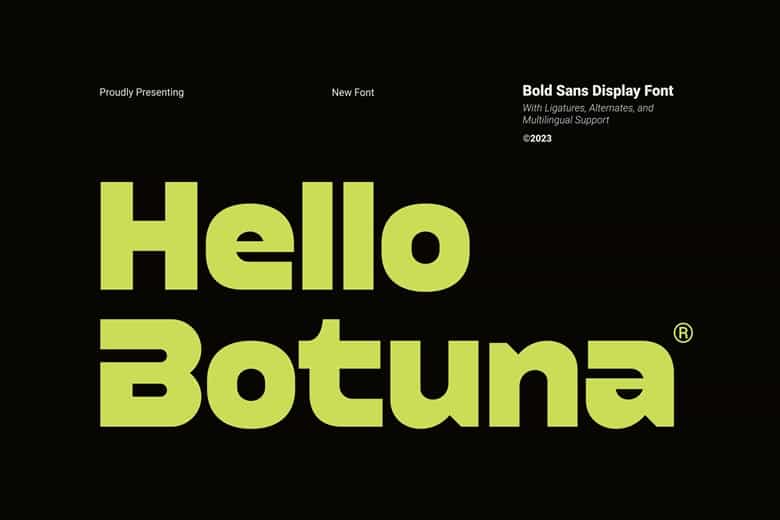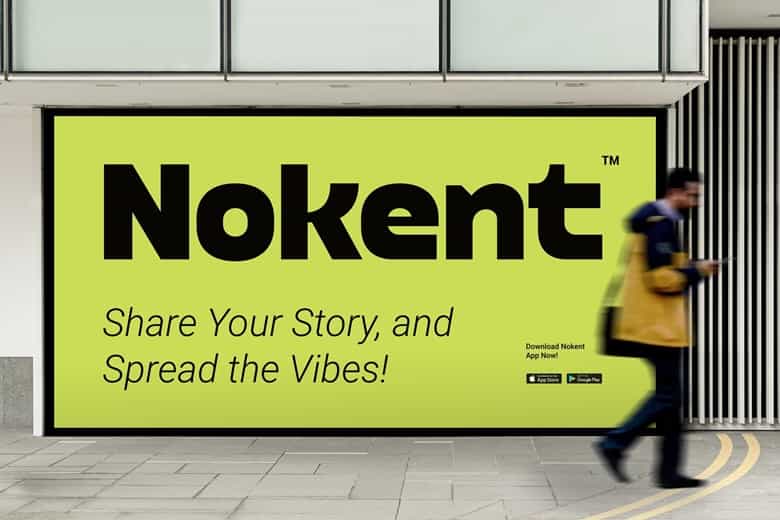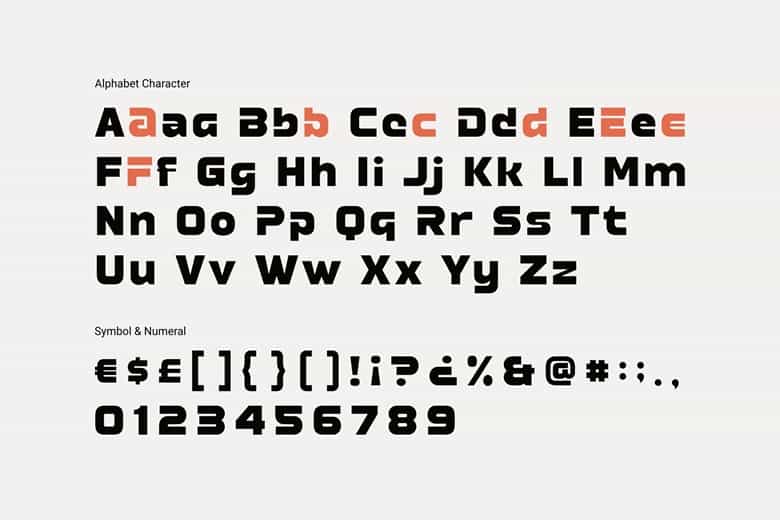
Discover Hello Botuna Font, part of the Sans Serif Display collection—a versatile and unique font perfect for adding a personal touch to your projects. Download it for free and enjoy crafting designs with style, from invitations to social media posts. This font is available exclusively for personal use, giving you the freedom to create without limits. Unlock your creativity with Hello Botuna Font today!
Hello Botuna is a contemporary and yet classic display font in the bold sans style font. This font is designed with finesse, and the immediate impact is achieved through the use of strong and clear lines. Hello Botuna is the perfect choice for projects that require a bold and powerful look, for titles, logos or advertising. The clear and strong sans serif typeface has an element of sophistication which gives it an edge and makes it appropriate for multiple designs.